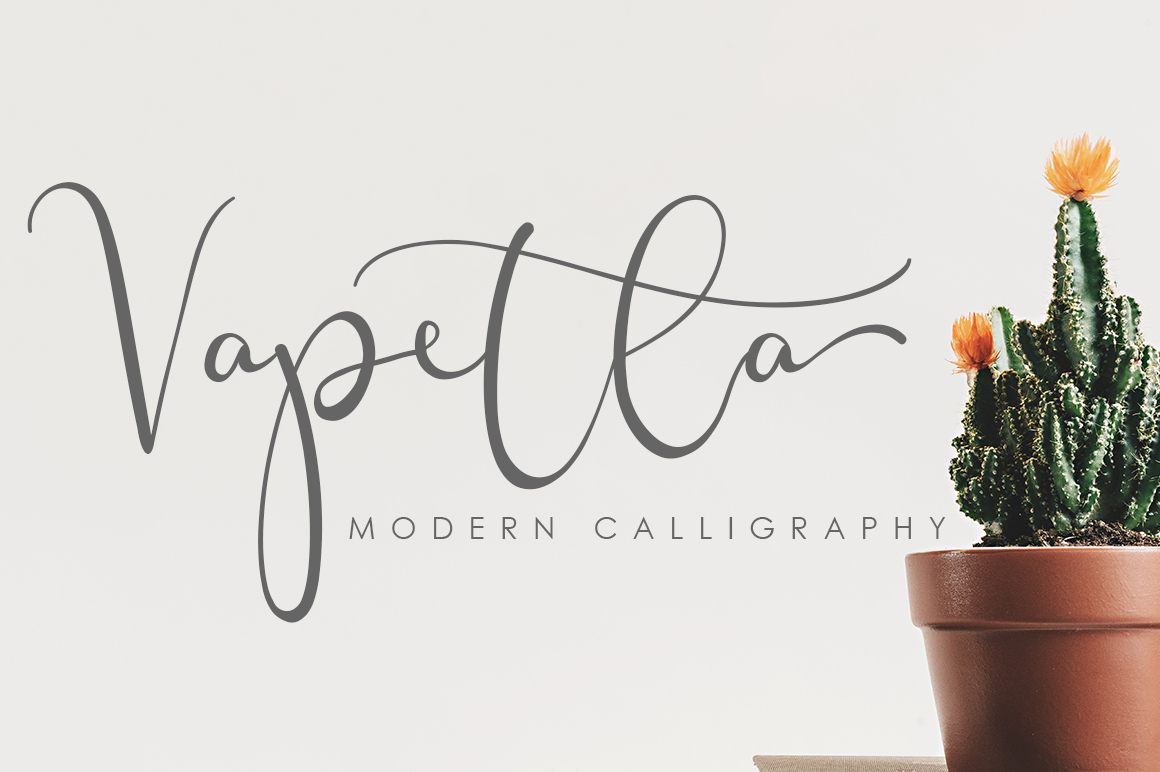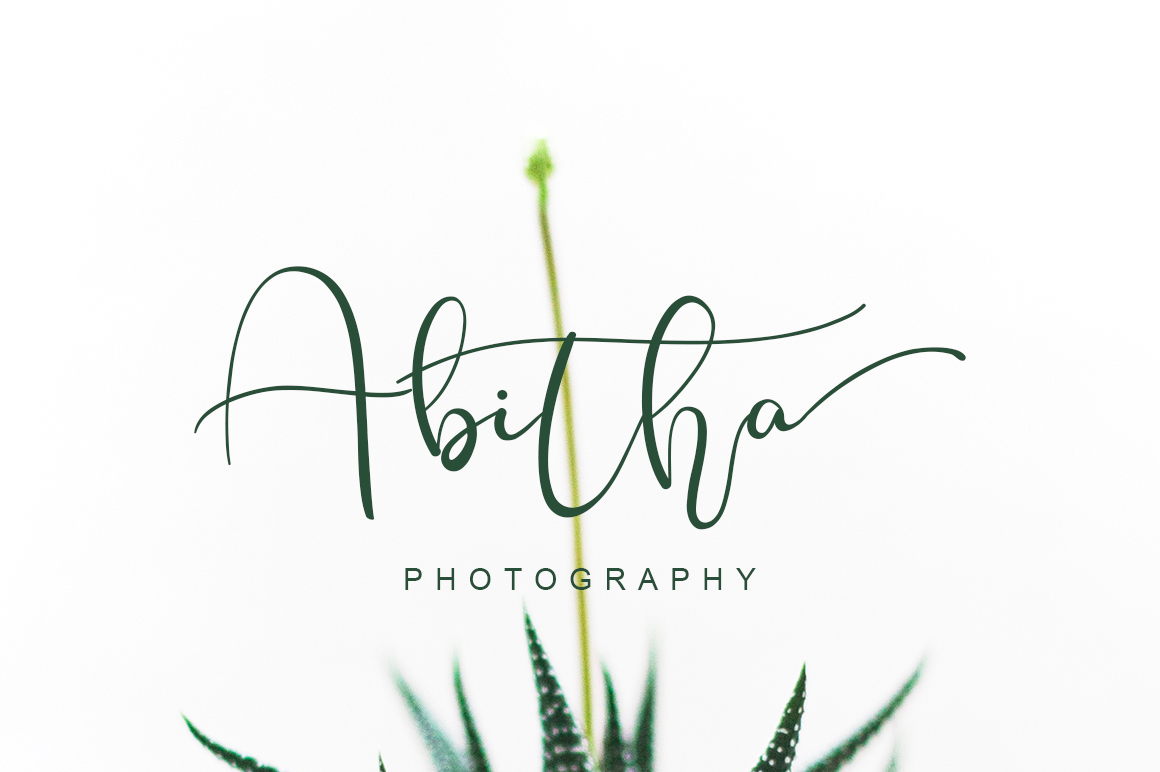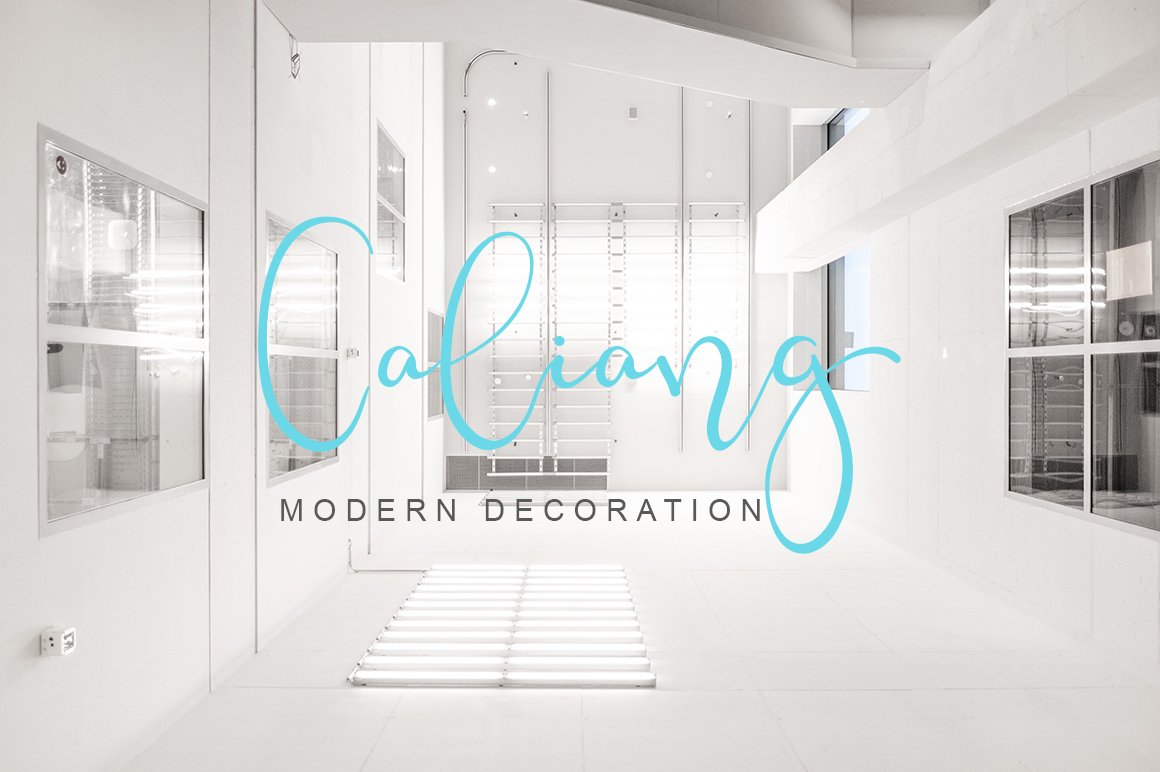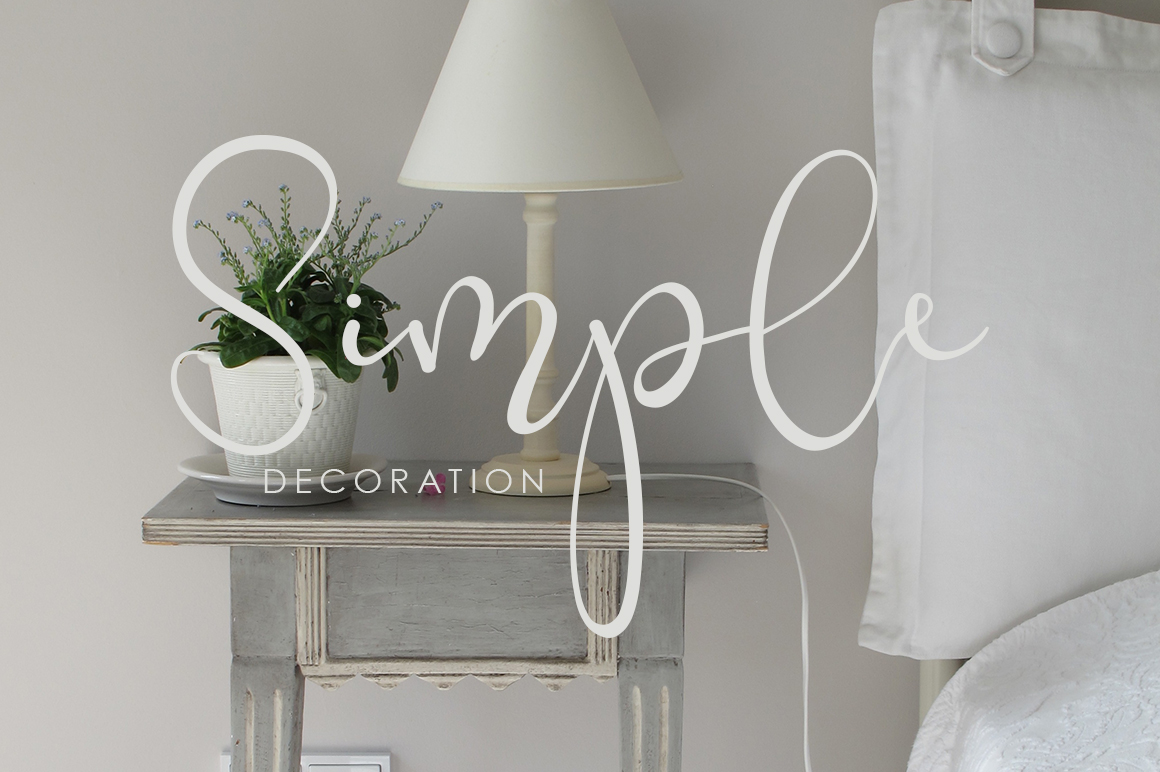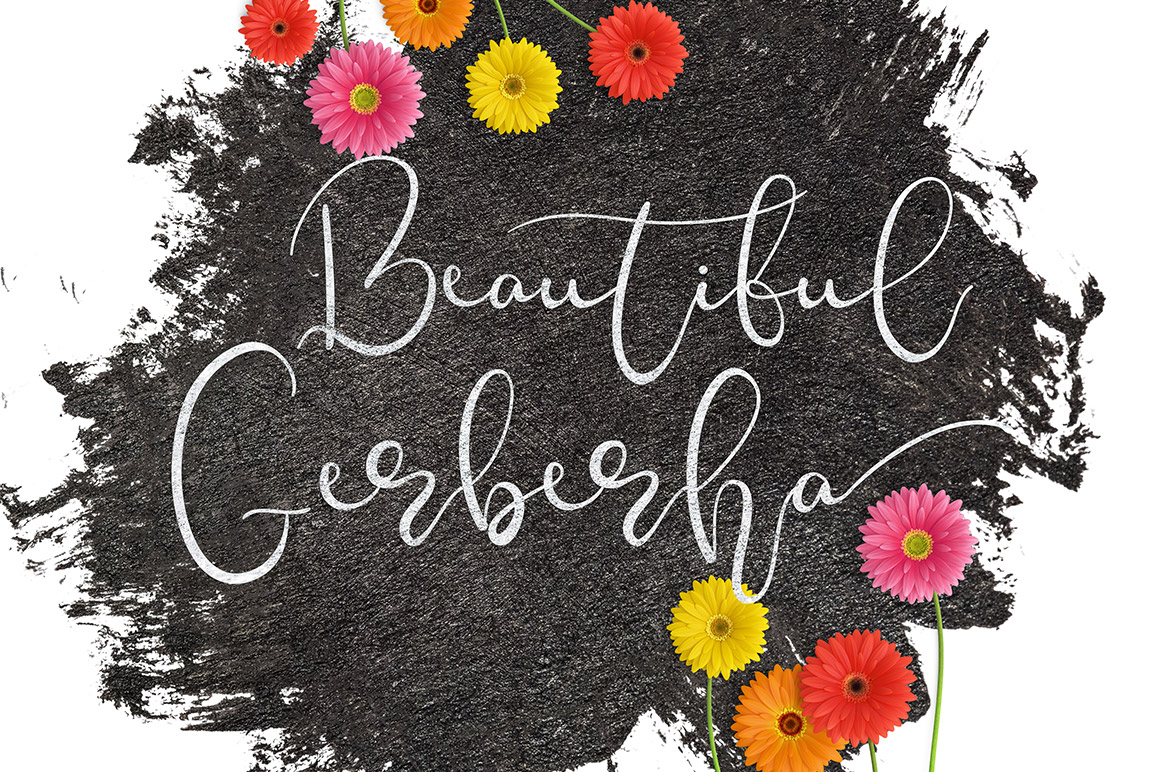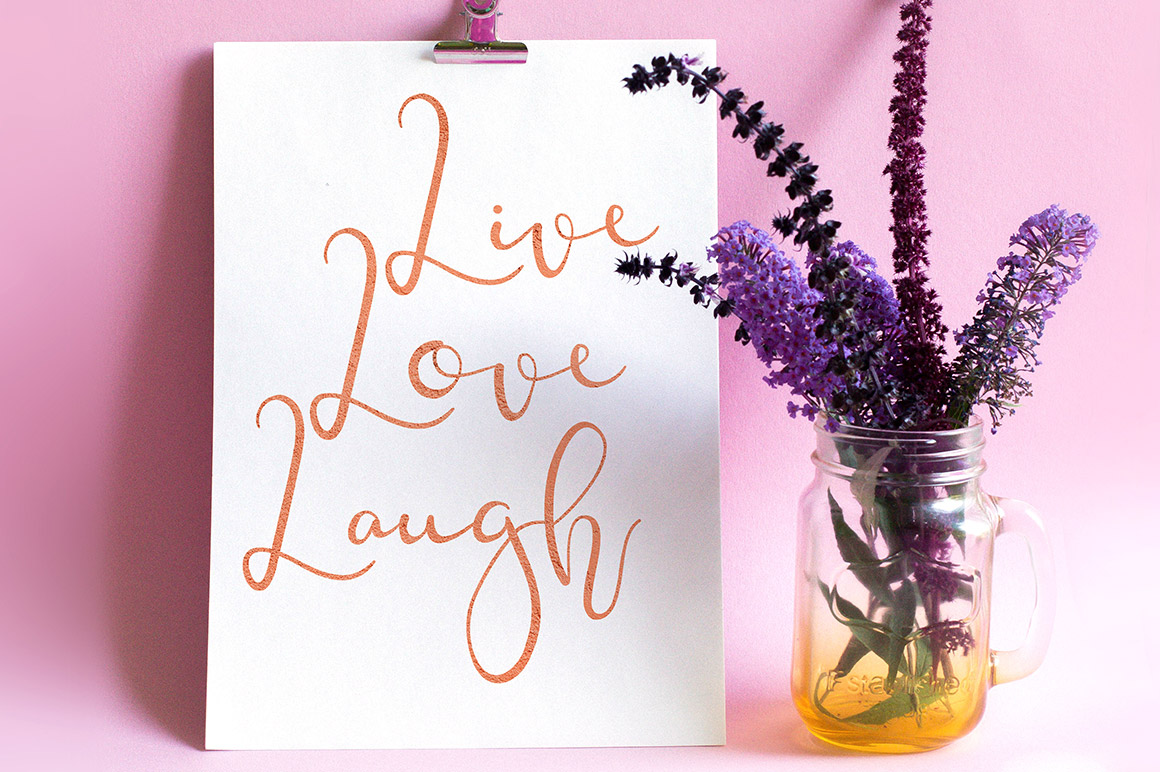
Vapetla Font
About Vapetla Font
Vapetla is a stunning modern typeface with a classic look & feel. It’s a font that works great in many different types of designs.